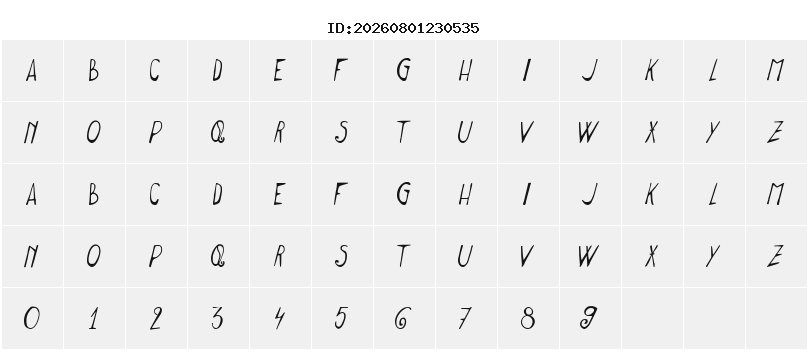
Meet me in Montauk Preview
• Font Name: Meet me in Montauk
• Designer: 18:18
About Meet me in Montauk.ttf
Meet me in Montauk.ttf is a modern, elegant sans-serif font designed for ultimate readability and visual harmony. Perfect for branding, headlines, web design, and print materials.